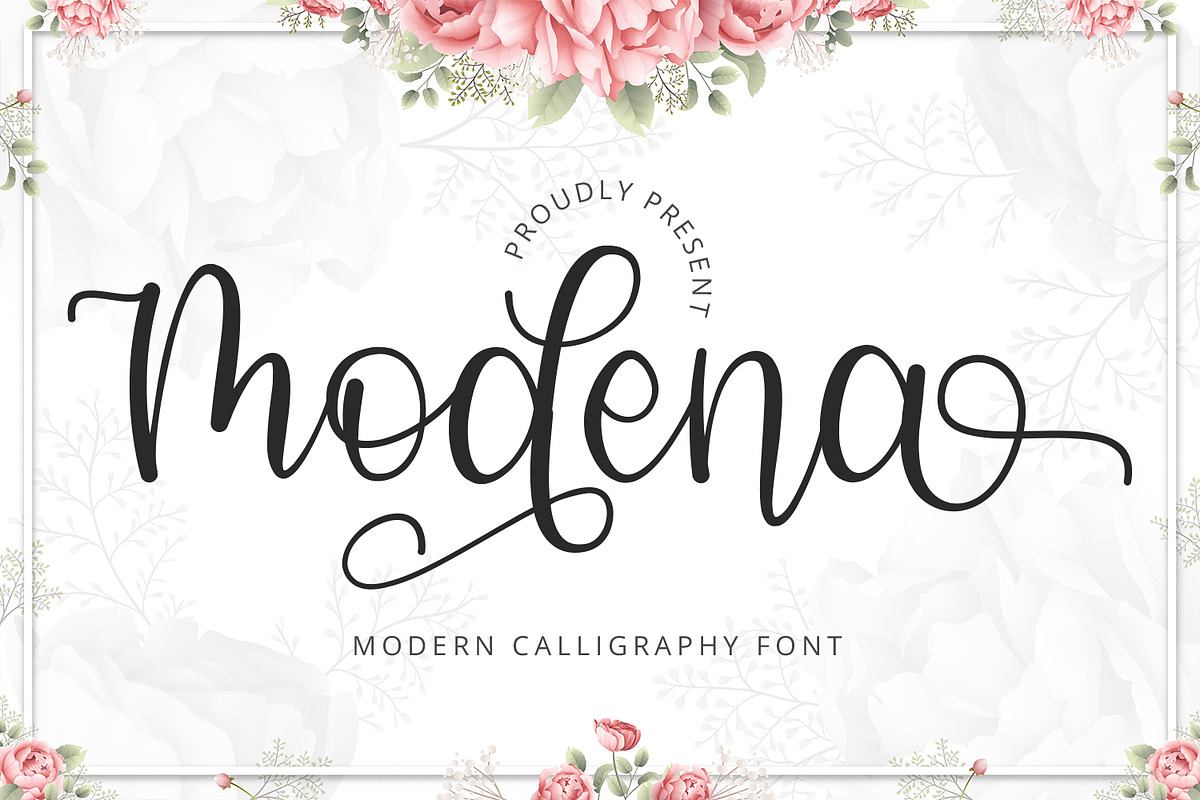
Bring elegance and fluid beauty to your designs with Modena – Modern Calligraphy Font Free Download. This stunning script font features flowing letterforms and graceful curves, making it a perfect choice for wedding invitations, branding, logos, social media graphics, and high-end packaging.
Modena blends classic calligraphy with a contemporary twist, offering both sophistication and personality. It includes uppercase and lowercase letters, numerals, punctuation, and a wide range of ligatures and alternates—ideal for testing personalized, artistic layouts.
Whether you're designing romantic stationery or luxurious product labels, Modena adds a handcrafted, stylish touch. For any commercial use, please ensure you purchase the correct license. Download Modena – Modern Calligraphy Font Free Download today and elevate your typography with modern elegance.